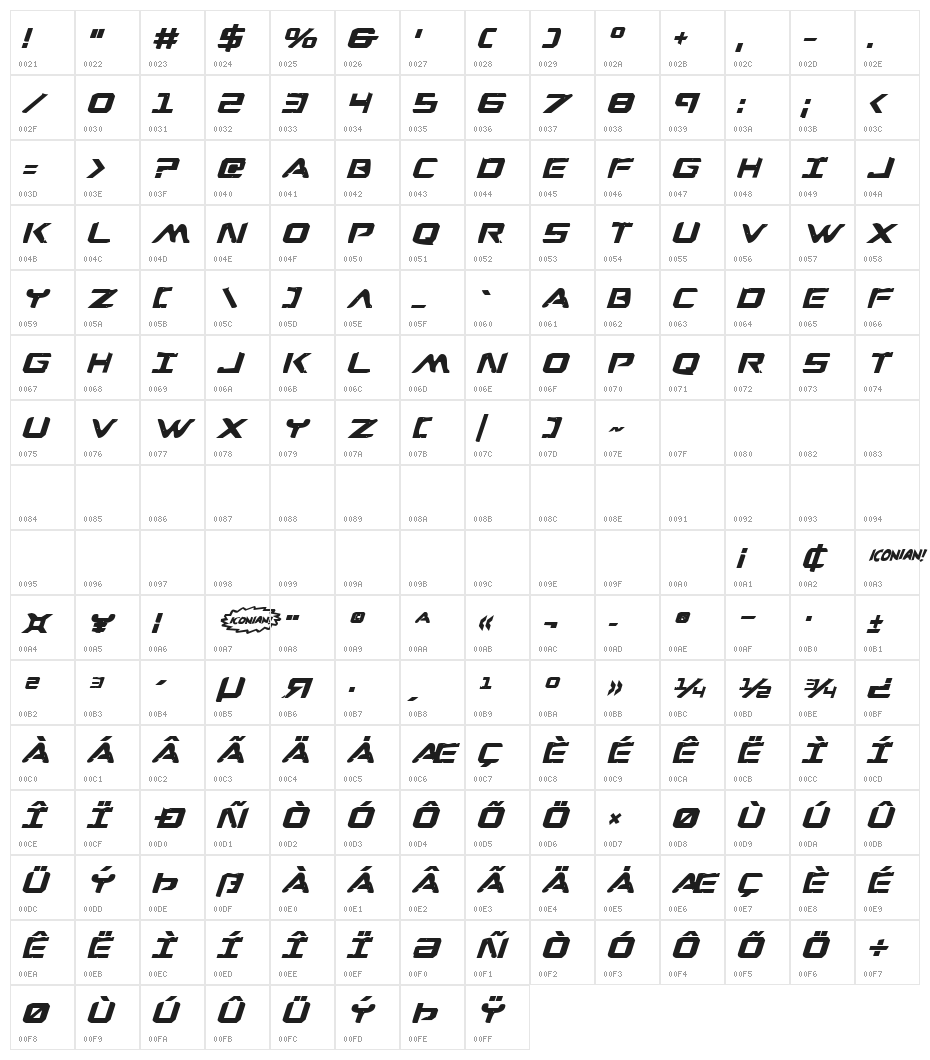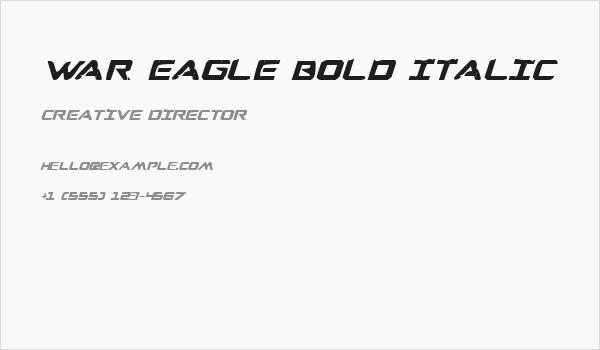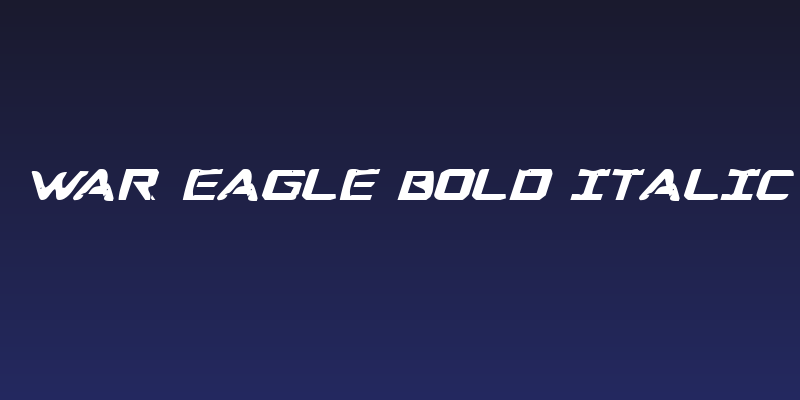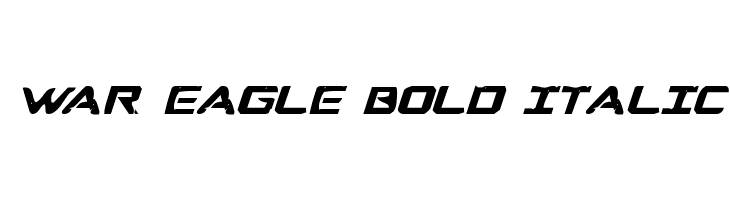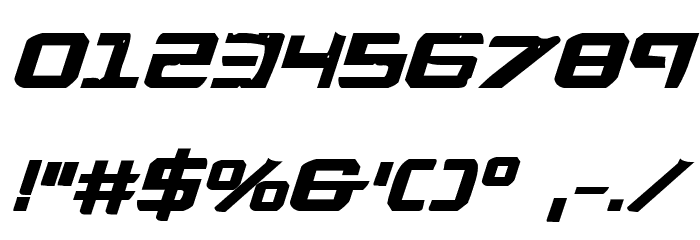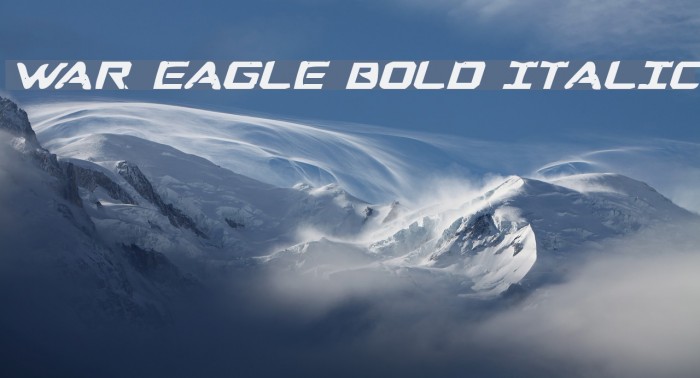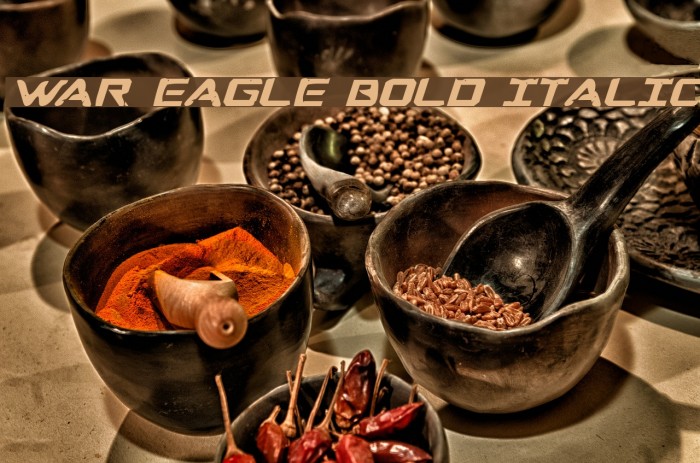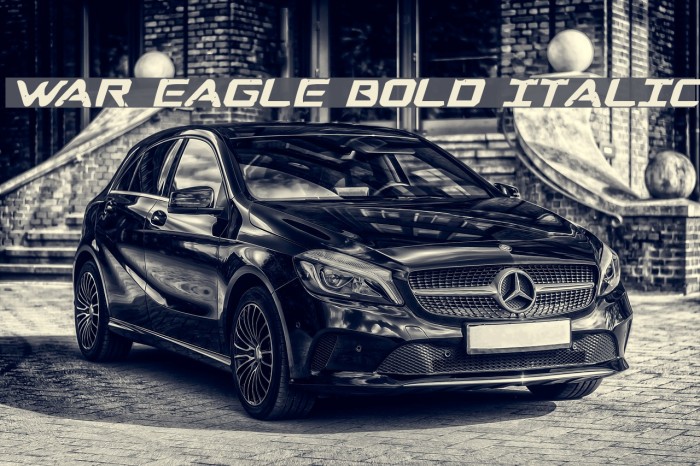
War Eagle Bold Italic Font
War Eagle Bold Italic Description
This font exhibits a bold and italicized style with a modern, edgy appearance. The characters are angular and dynamic, featuring sharp edges and a sense of movement. The uppercase and lowercase letters maintain a consistent slant, enhancing the italic effect. The numbers and special characters follow the same stylistic cues, ensuring uniformity across all glyphs. This font's bold weight and italic posture make it stand out, ideal for attention-grabbing designs.
| Proposed Projects | Ideal for sports branding, dynamic posters, video game titles, and action-themed designs. |